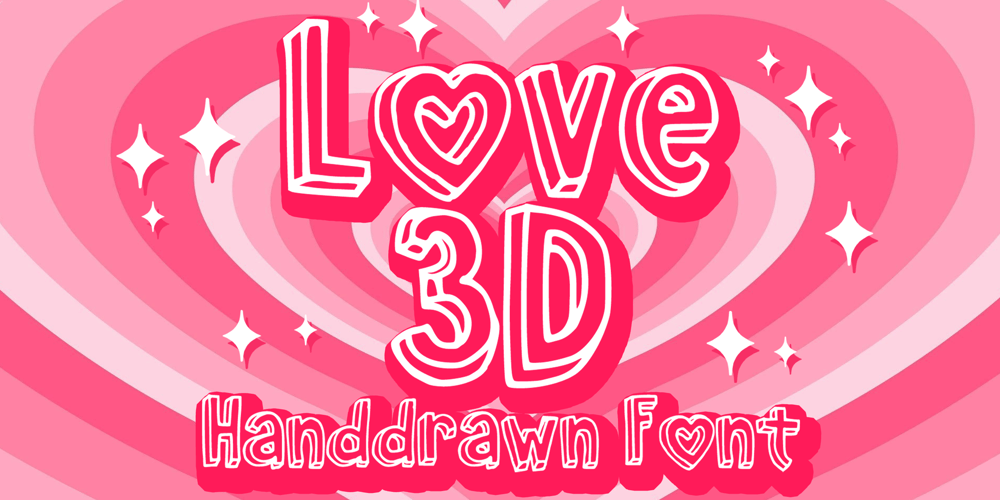
Love 3 d
Love 3 d font
Love 3 d Font Family was designed by Gabriel Valentinus and published by Mvmet. Love 3 d contains 1 styles and family package options. Love 3D is a fun and playful handdrawn font. You can use it for anything ranging from t-shirts, book designs, packaging and greeting cards to stickers and posters, or anything that needs a casual touch. If you want to use it for Valentine or other lovely themed designs, it will be your perfect font to pick. Fall in love with its incredibly versatile style, and use it to create lovely designs!